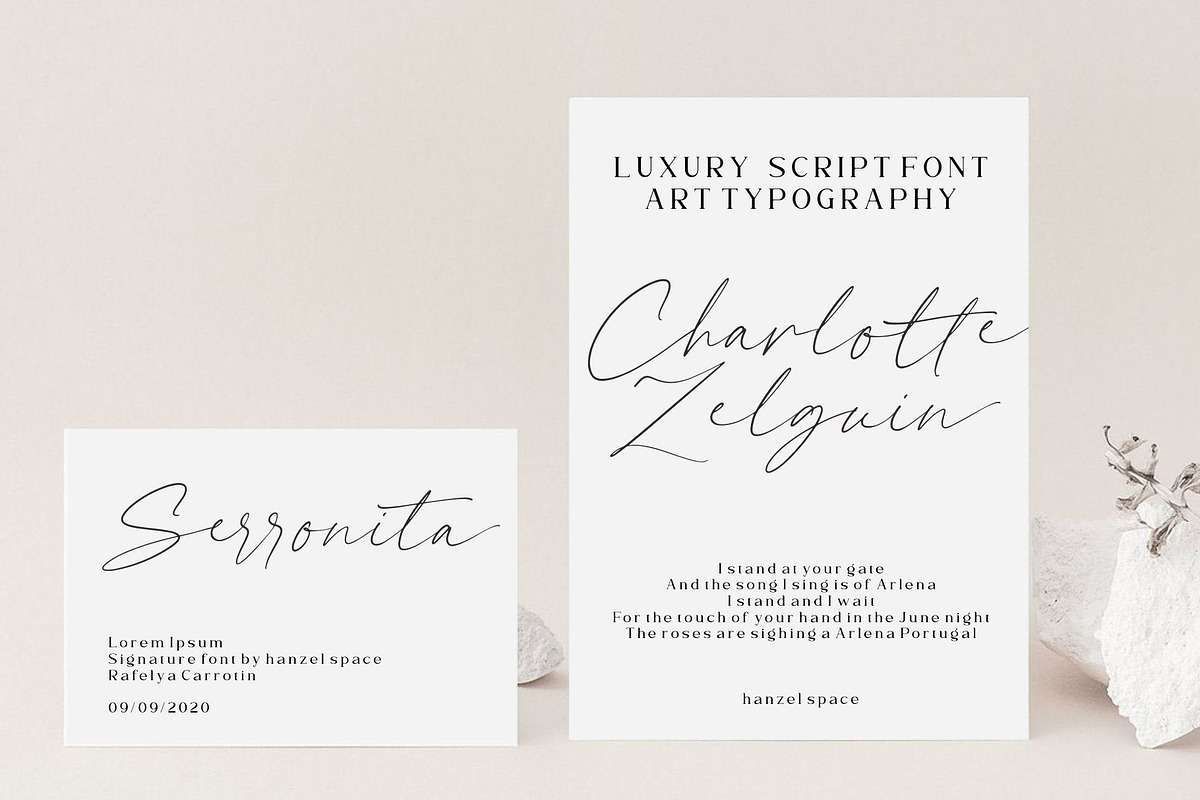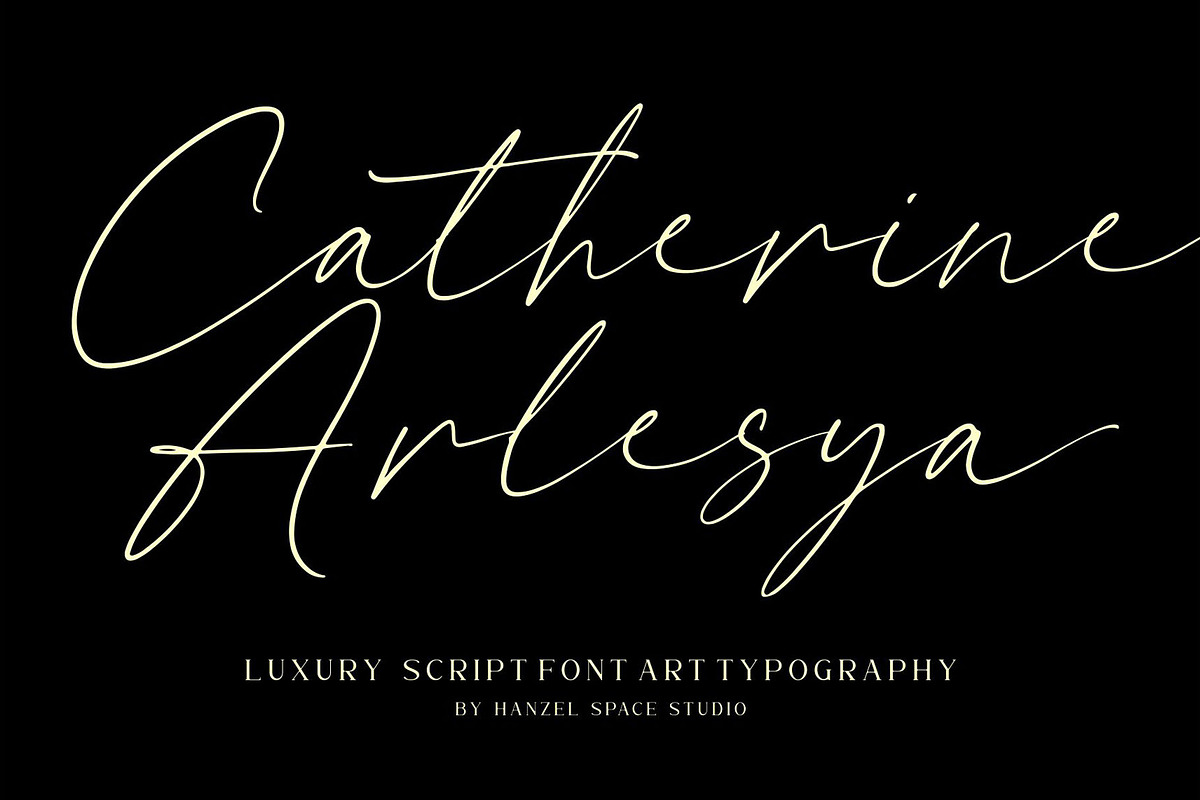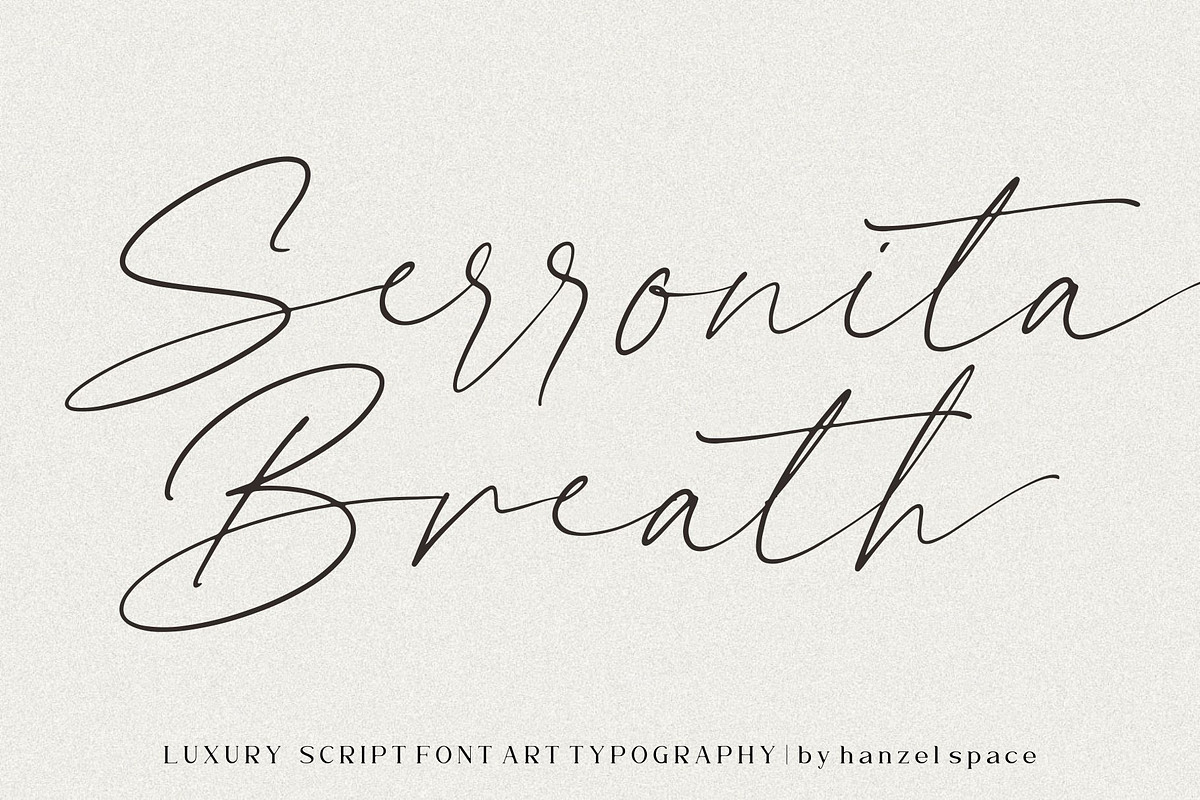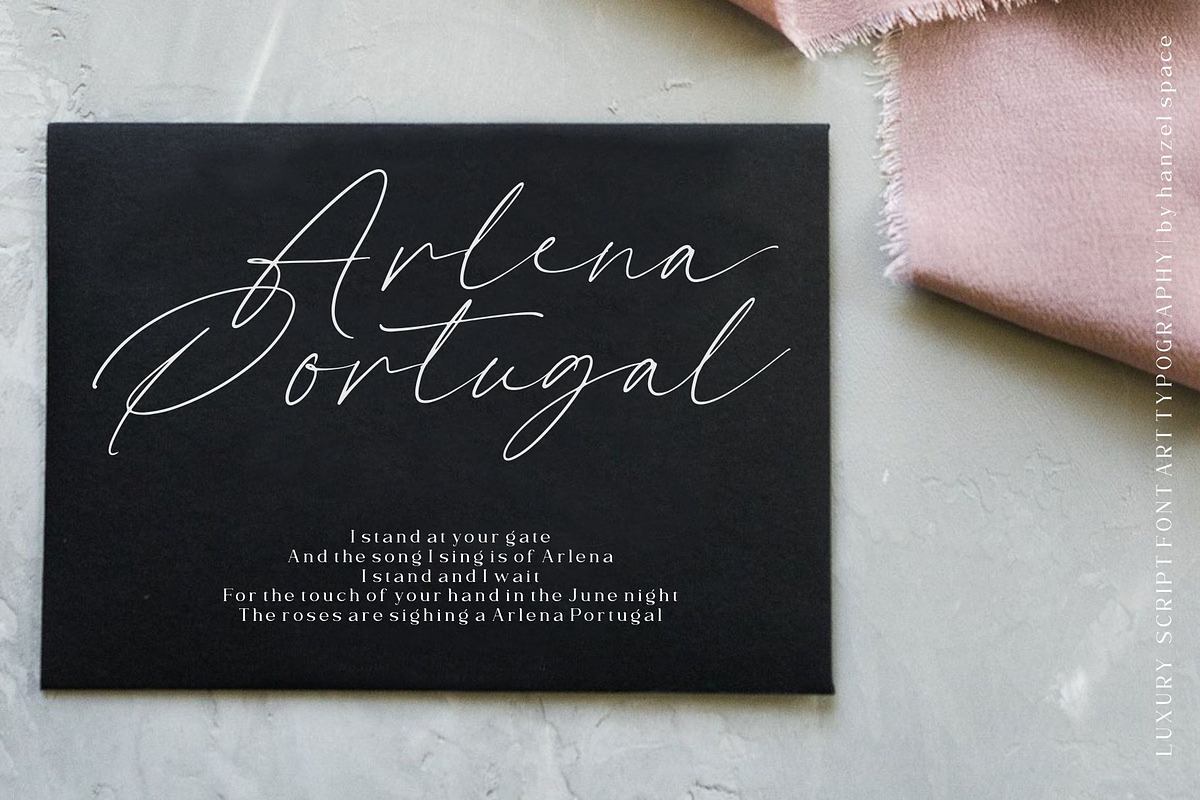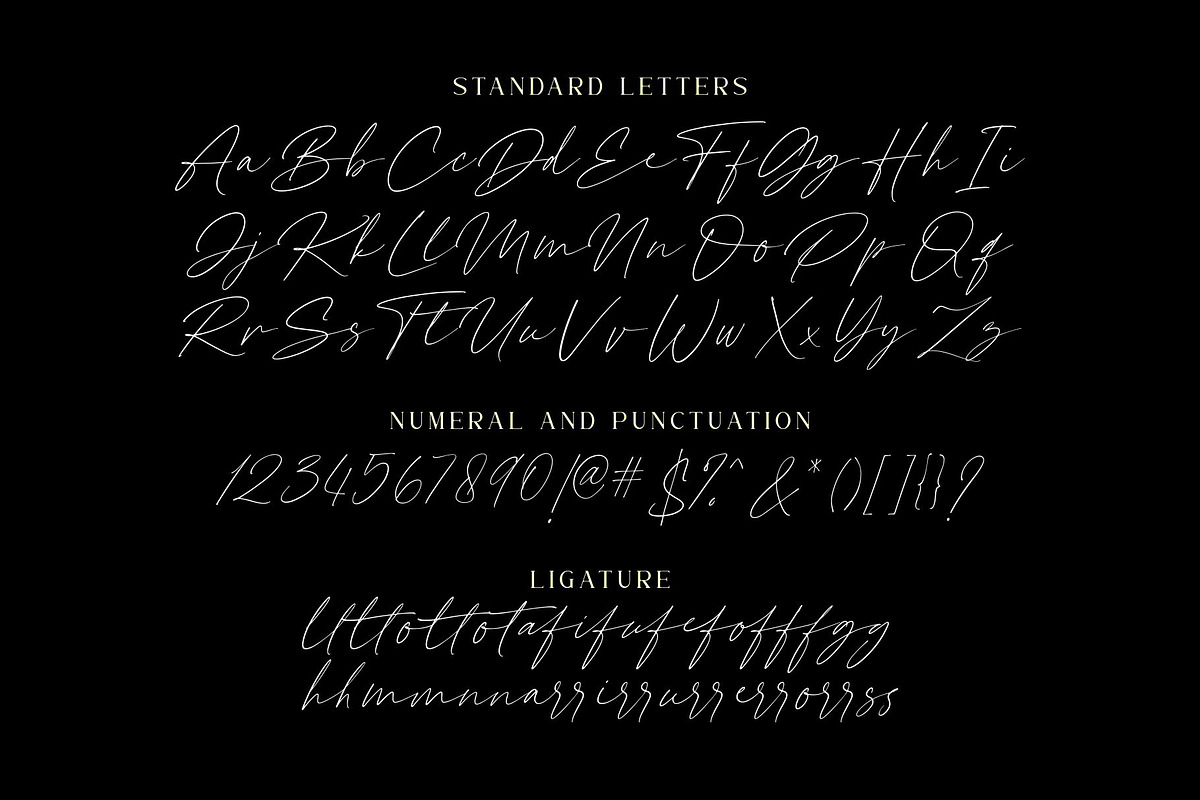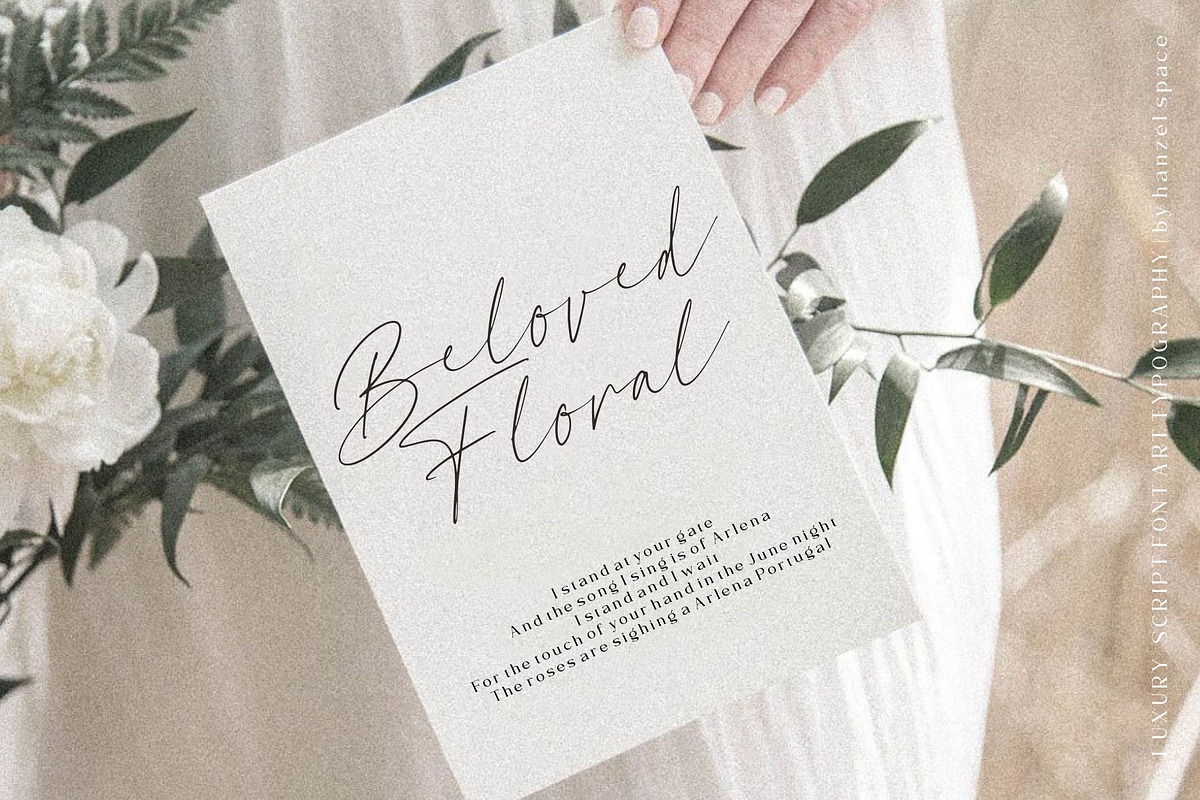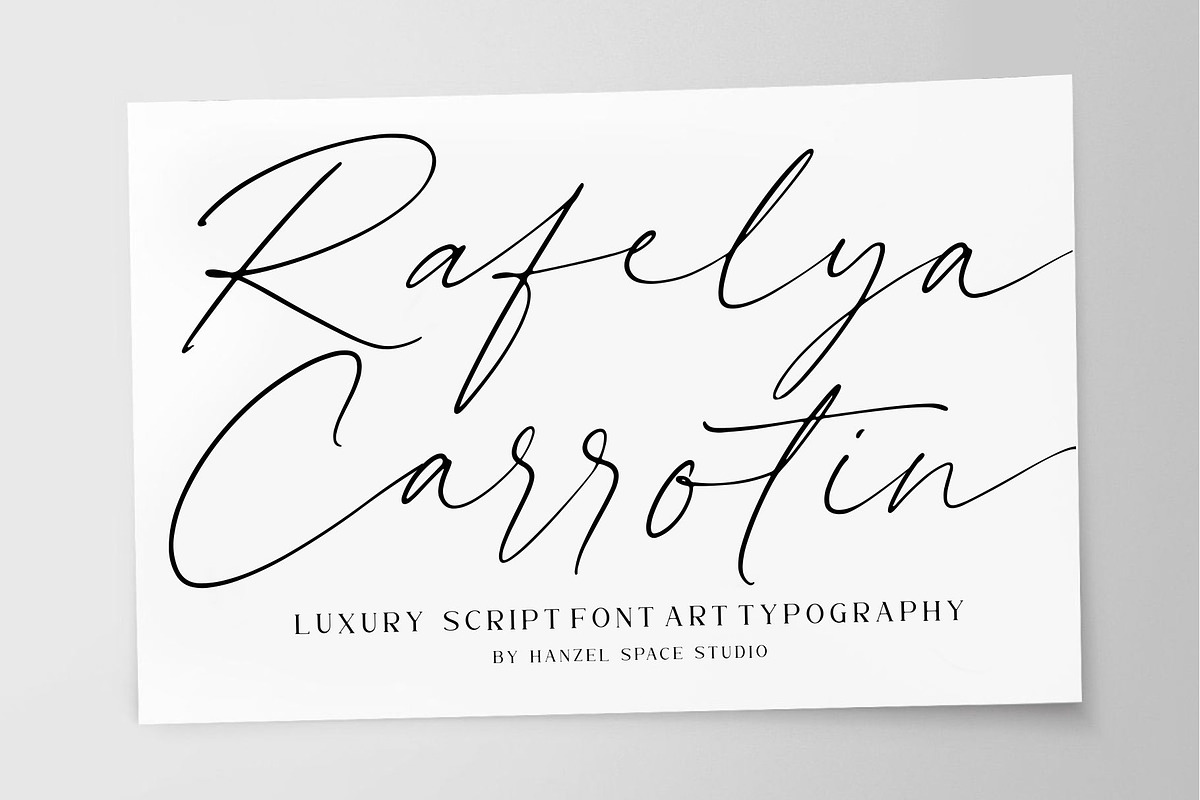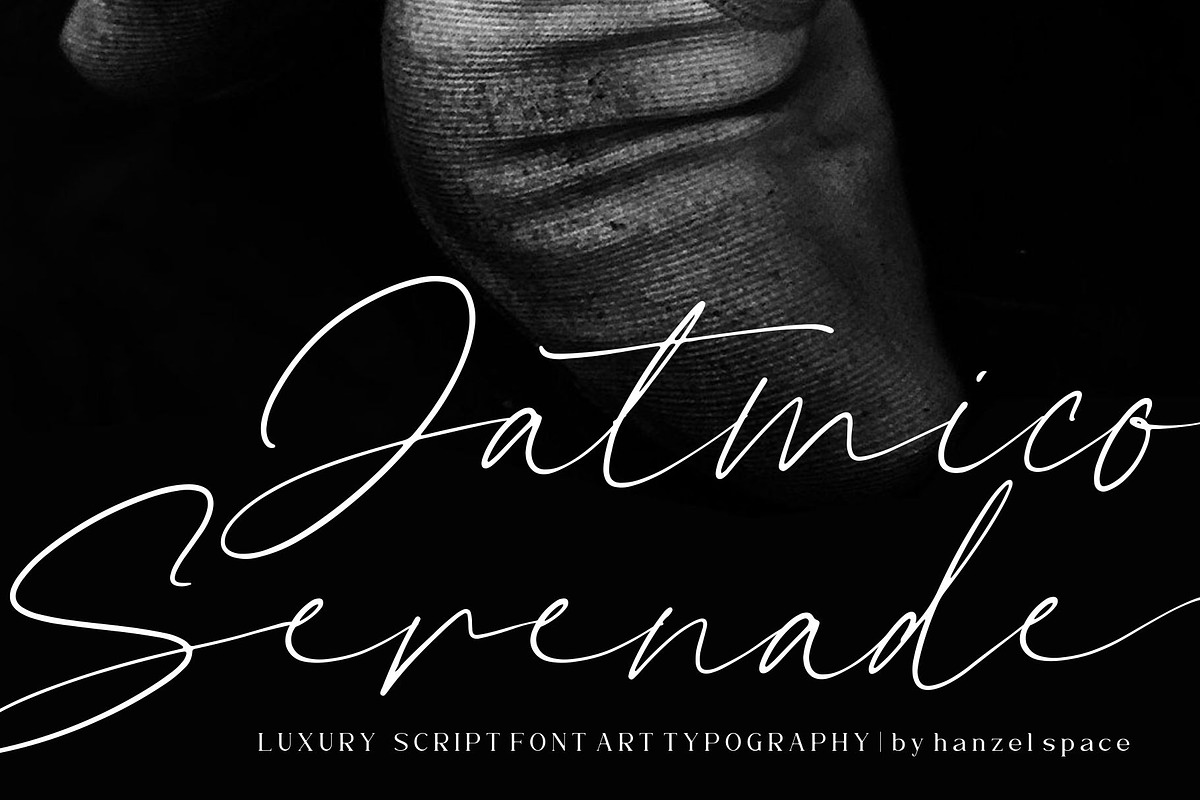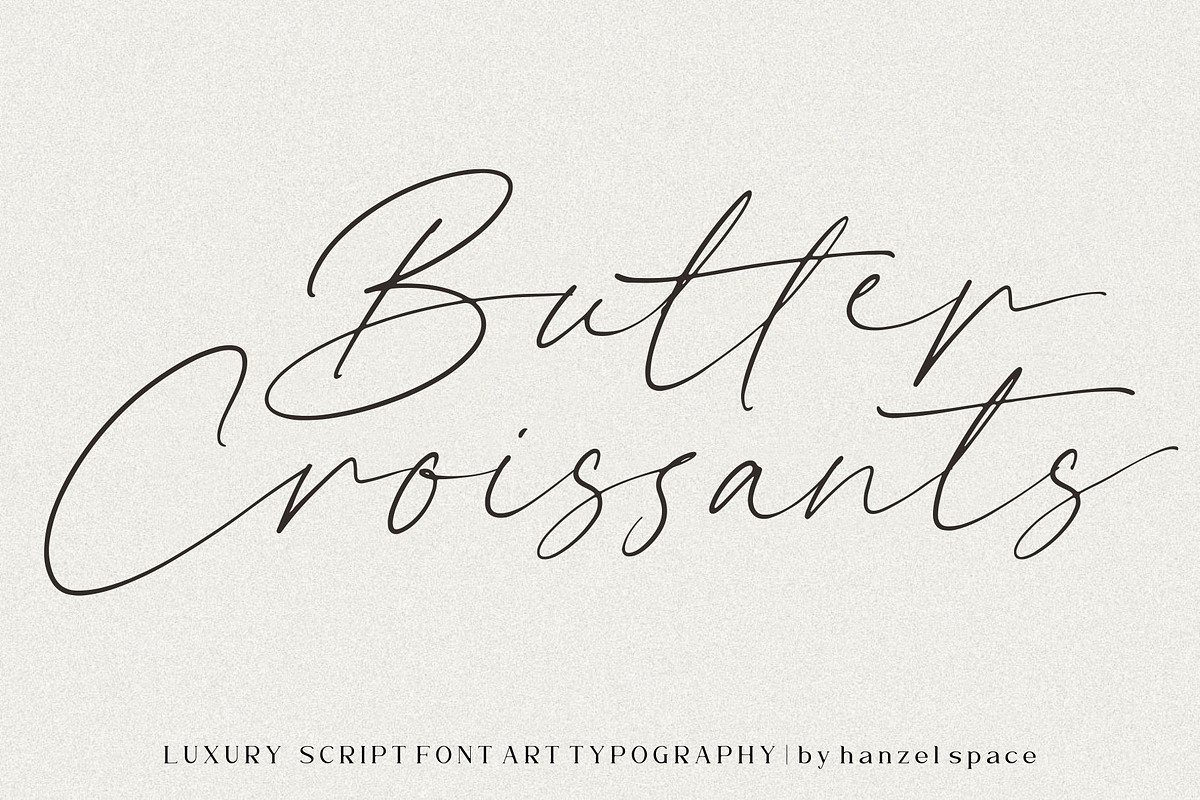
Rafelya Carrotin | Luxury Script
Rafelya Carrotin is a modern calligraphy font with contemporary, sophisticated accents. It is perfect for branding, wedding invites and cards, and maybe for red wine label.
Rafelya Carrotin includes full set of gorgeous uppercase and lowercase letters, numerals, a large range of punctuation and ligatures. All lowercase letters include beginning, giving realistic hand-lettered style. It expresses beauty of handwriting. What you get, darling?